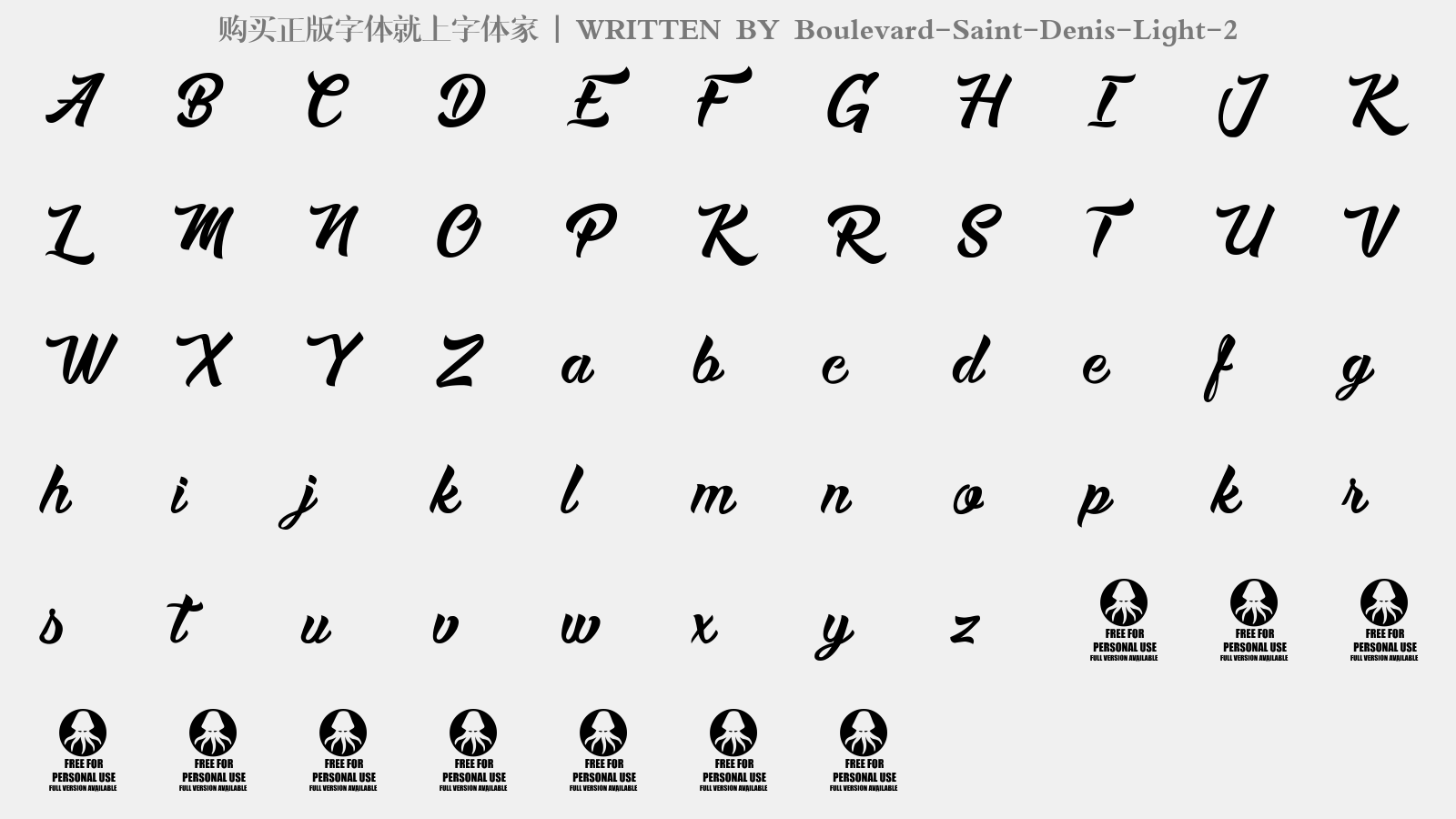
Boulevard Saint Denis Light Font . Boulevard saint denis à € von octotype | thomas boucherie in schreibschrift > diverse 460.465 downloads (3 gestern) kostenlos für privaten. Boulevard saint denis.ttf boulevard saint denis. The boulevard saint denis light font contains 186 beautifully designed characters. Boulevard saint denis font boulevard saint denis family consisting of 2 fonts. ️ customize your own preview on ffonts.net to make sure it`s the right one for your designs. Boulevard saint denis light is a font. Boulevard saint denis font | dafont.com english français español deutsch italiano português. The typeface contains 2 files and supports 37 languages. This font has 2 styles. Boulevard saint denis light font boulevard saint denis family consisting of 2 fonts. Boulevard saint denis is a script type font that can be used on any device such as pc, mac, linux, ios and android.
This font has 2 styles. Boulevard saint denis light is a font. Boulevard saint denis is a script type font that can be used on any device such as pc, mac, linux, ios and android. ️ customize your own preview on ffonts.net to make sure it`s the right one for your designs. Boulevard saint denis à € von octotype | thomas boucherie in schreibschrift > diverse 460.465 downloads (3 gestern) kostenlos für privaten. Boulevard saint denis font | dafont.com english français español deutsch italiano português. Boulevard saint denis font boulevard saint denis family consisting of 2 fonts. The typeface contains 2 files and supports 37 languages. The boulevard saint denis light font contains 186 beautifully designed characters. Boulevard saint denis light font boulevard saint denis family consisting of 2 fonts.
Boulevard Saint Denis Light Font Boulevard saint denis font boulevard saint denis family consisting of 2 fonts. The typeface contains 2 files and supports 37 languages. Boulevard saint denis light is a font. Boulevard saint denis light font boulevard saint denis family consisting of 2 fonts. Boulevard saint denis à € von octotype | thomas boucherie in schreibschrift > diverse 460.465 downloads (3 gestern) kostenlos für privaten. Boulevard saint denis font boulevard saint denis family consisting of 2 fonts. Boulevard saint denis font | dafont.com english français español deutsch italiano português. The boulevard saint denis light font contains 186 beautifully designed characters. Boulevard saint denis is a script type font that can be used on any device such as pc, mac, linux, ios and android. ️ customize your own preview on ffonts.net to make sure it`s the right one for your designs. Boulevard saint denis.ttf boulevard saint denis. This font has 2 styles.